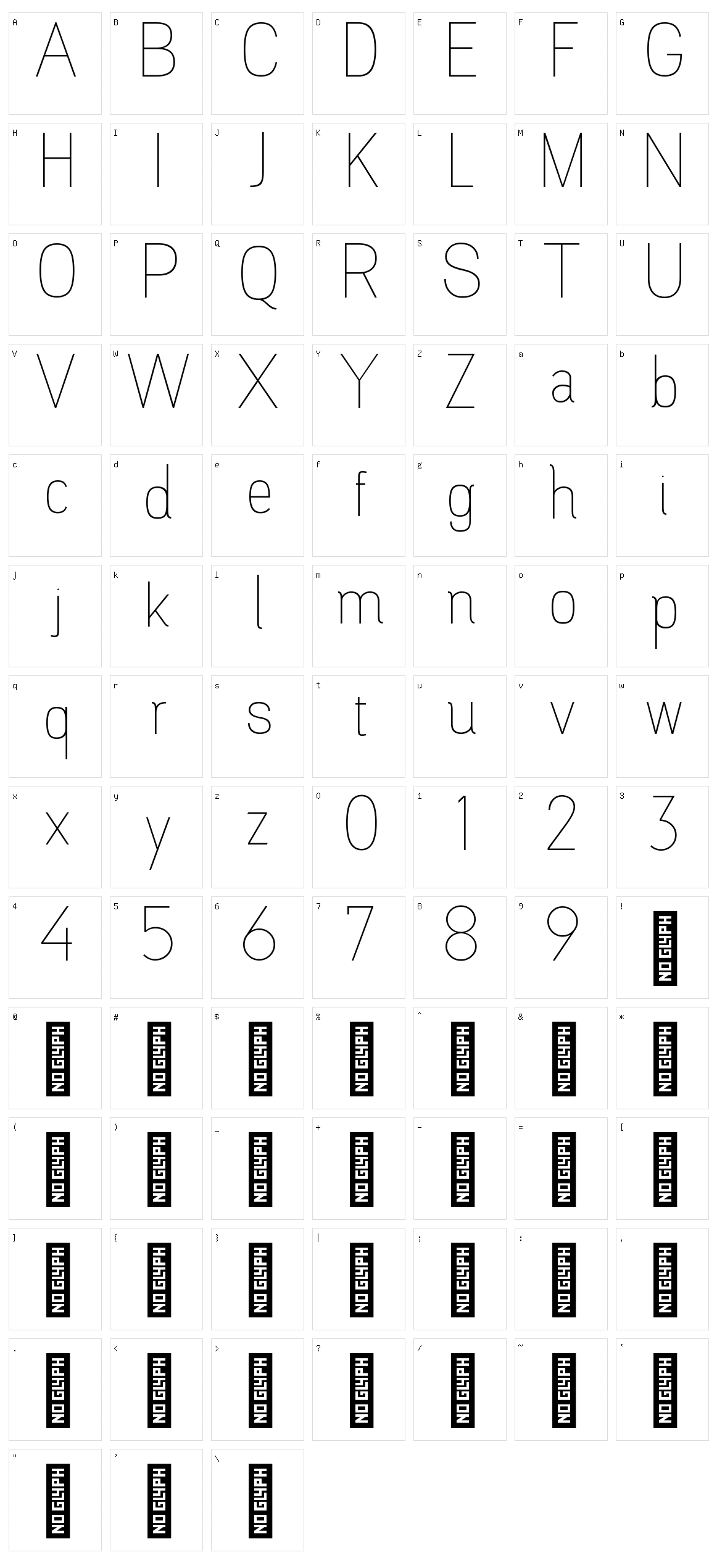
The free font Magnolla is carefully designed by Dxsign Type, showcasing a thoughtful balance of creativity and usability and falls under the Sans serif font style. When you download the ZIP file, it contains only 6.57 KB of font files, making it lightweight and quick to download. Please review the license details below to understand permitted usage and distribution rights. If license information is not available, we recommend using this font for personal projects only or contacting the author directly for commercial usage permissions.